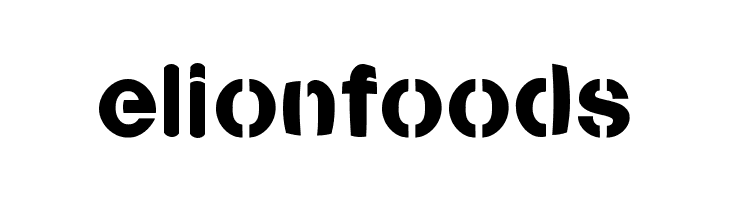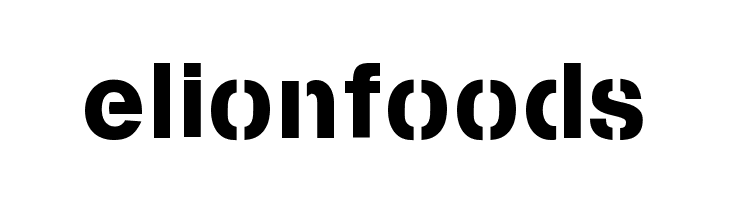
Stencilia-A Font
A bold, stencil-style font with geometric shapes and clean lines.
Timeless-Normal Font
A classic serif font with elegant strokes and balanced proportions.
Timeless-Bold Font
A bold, classic serif font with strong, elegant strokes.
RomanSerif Font
A classic serif font with elegant details and balanced proportions.
FolksShades Font
A bold, playful font with a 3D shadow effect, perfect for attention-grabbing designs.
FranKleinBold Font
A bold, modern sans-serif font with excellent readability.
FranKleinMedium Font
A modern, sans-serif font with clean lines and balanced spacing.
FolksBlack Font
A bold, rounded font with a friendly and approachable style.
Decadentia Font
An ornate, decorative font with intricate swirls and flourishes.
BigSquareDots Font
A pixelated dot-based font with a uniform and structured design.
AidaSerifa-Condensed Font
A classic serif font with a condensed style and moderate contrast, ideal for formal use.
BigSlabHammer Font
A bold, slab serif font with thick serifs and a strong presence.
WoodcuttedCaps Font
A bold, woodcut-style font with a rustic, handcrafted appearance.
KleinsanBold Font
A bold, rounded font with a modern and impactful style.
Tschich Font
A modern, geometric font with clean, rounded edges and a minimalist style.
CuxhavenTimes Font
A bold and intricate blackletter font with gothic flourishes.
Stencilia-Bold Font
A bold, stencil-style font with distinct character breaks for an industrial look.
BigSwingingSlabS Font
A bold slab serif font with strong, block-like serifs and a commanding presence.
Steepidien Font
A classic serif font with elegant strokes and pronounced serifs.